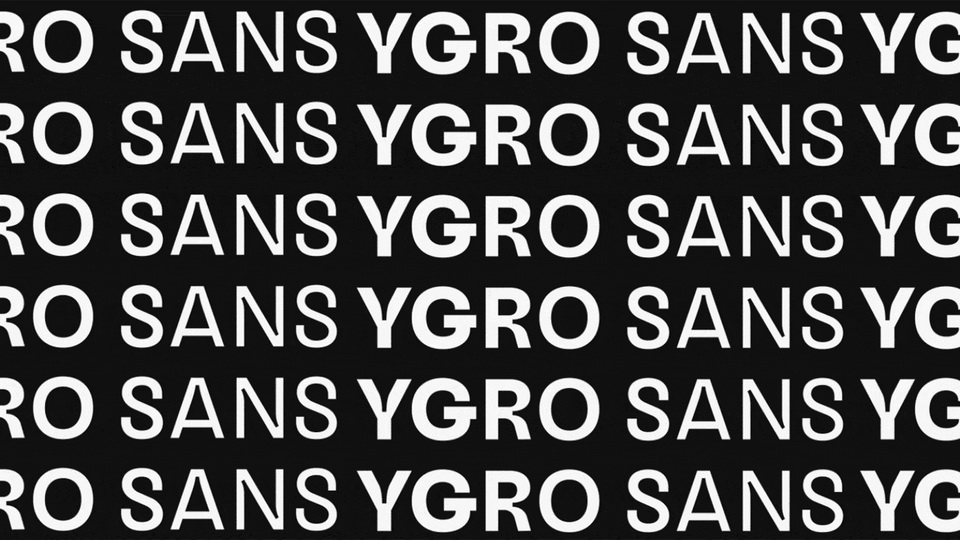
Download Ygro Sans typeface, a carefully designed font family in three weights created on the concept of fluidity. Ygro Sans combines a geometric foundation, a grotesque pedigree and a playful tone of voice.
Designer: Jan Burchiellaro Falinski